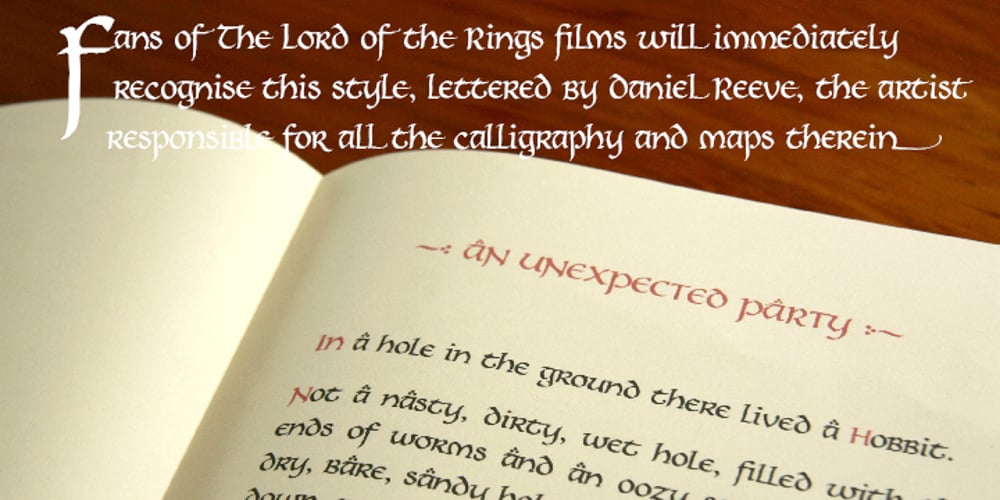
Kereru Font Family was designed by Daniel Reeve and published by Daniel Reeve. Kereru contains 4 styles and family package options. Artist and calligrapher Daniel Reeve, well known for the lettering and maps in The Lord of the Rings films, is creating hand-crafted fonts of some of his writing styles – Kereru is the inaugural release, allowing users to emulate some of his much-admired calligraphy. Nominally a half-uncial style, clever arrangements of the stylistic sets allow Kereru to be set as full uncial or standard roman, as well as offering numerous alternates, ligatures, swashes and flourishes, ornaments, unlimited fractions, scientific inferiors and numeric superscript, all accessible via OpenType features. Cyrillic and Greek alphabets are included, in addition to the letters required for all the languages of Western, Central and Eastern Europe, Scandinavia and the Baltic. Kereru is very legible and easy on the eye, without sacrificing calligraphic flair. A pdf description of the Stylistic Sets and their usage is included with the font package, which comprises regular, bold and italic variations. Kereru Italic supercedes and improves upon its previous incarnation, Shire Regular. The name Kereru comes from New Zealand’s Maori language – it is our native wood pigeon, a bird of generous and rounded form, like the font itself.